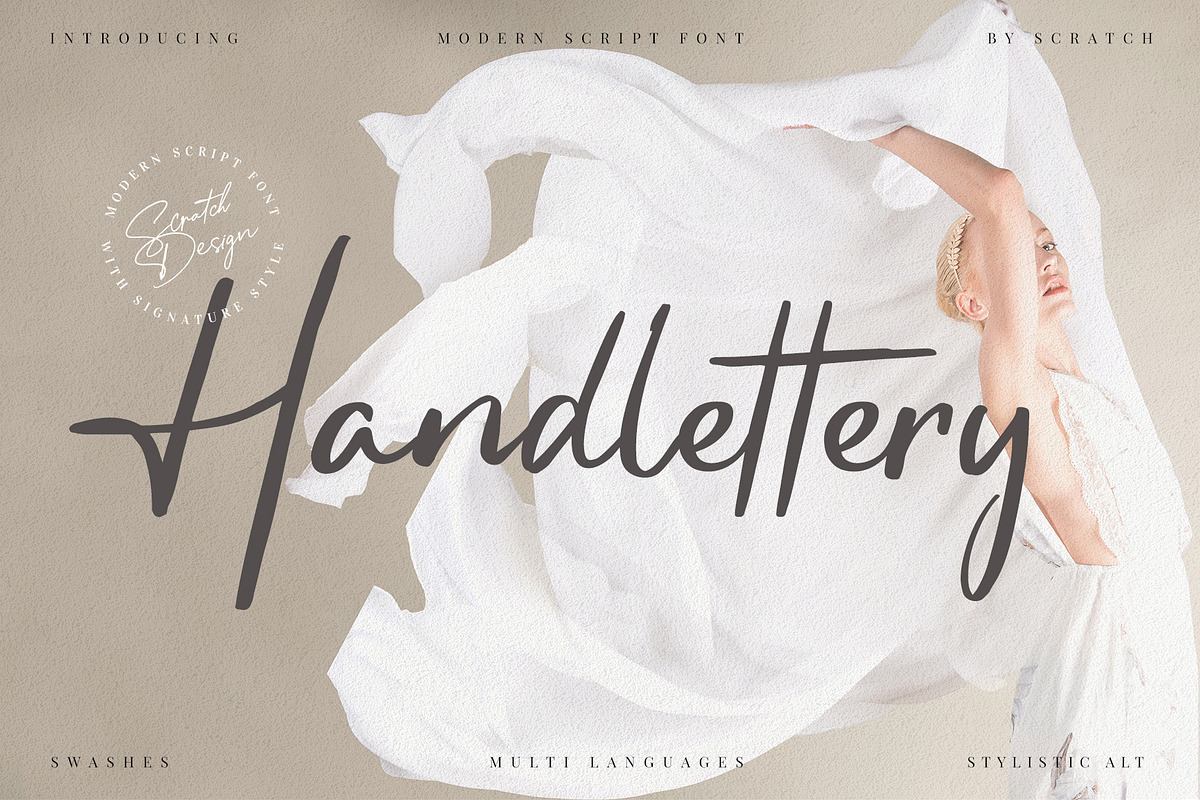
Expressive, modern, and full of handcrafted charm, Handlettery Script Font Free Download is a stylish script typeface designed to mimic natural handwriting with a touch of flair. Perfect for logos, social media graphics, branding, wedding stationery, and inspirational quotes, this font adds a personal and artistic touch to any design.
With fluid strokes, smooth curves, and elegant ligatures, Handlettery brings both warmth and professionalism. It’s ideal for creatives who want their typography to feel approachable yet refined. The font also includes alternate characters to give your text a more customized and organic look.